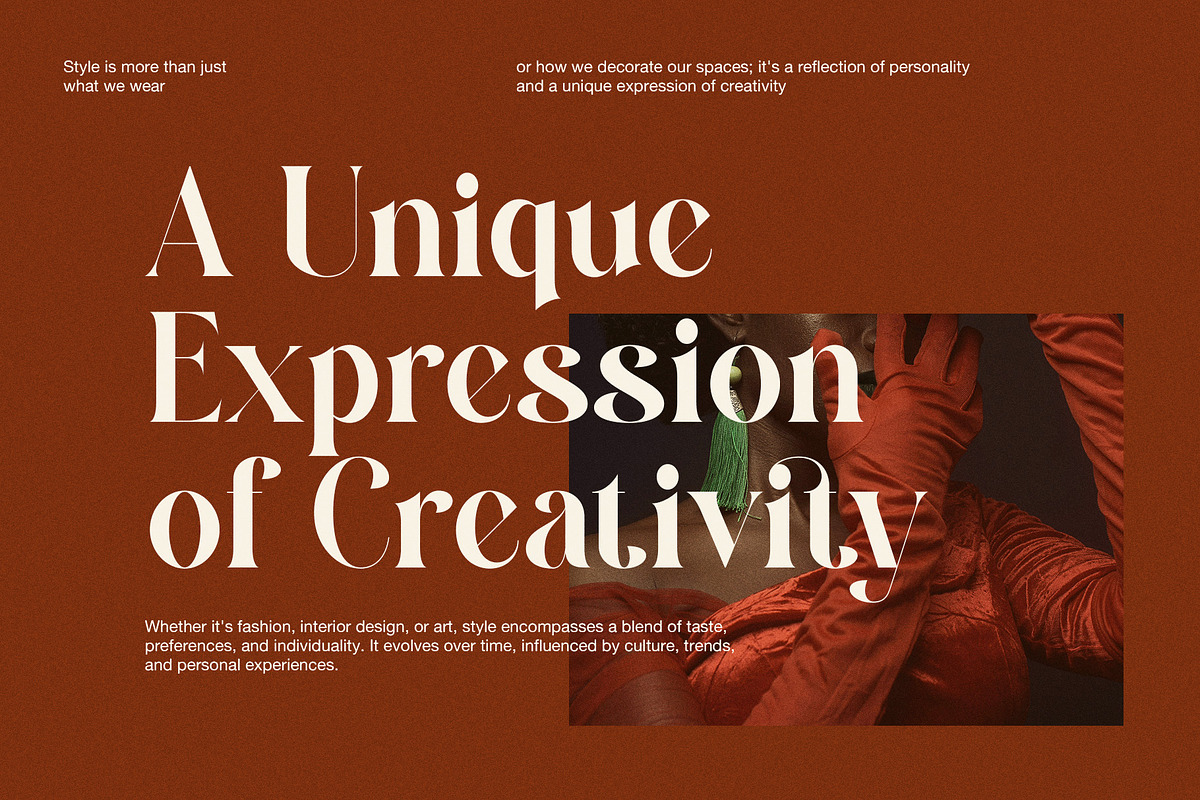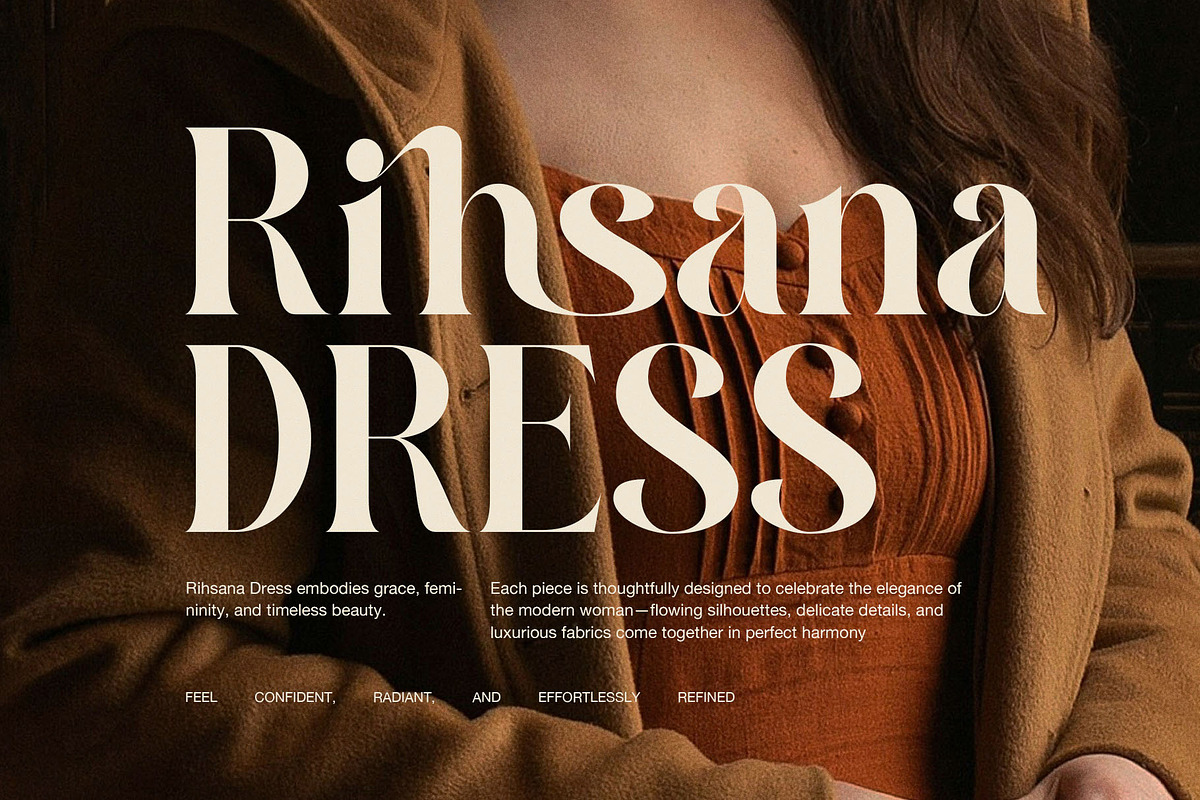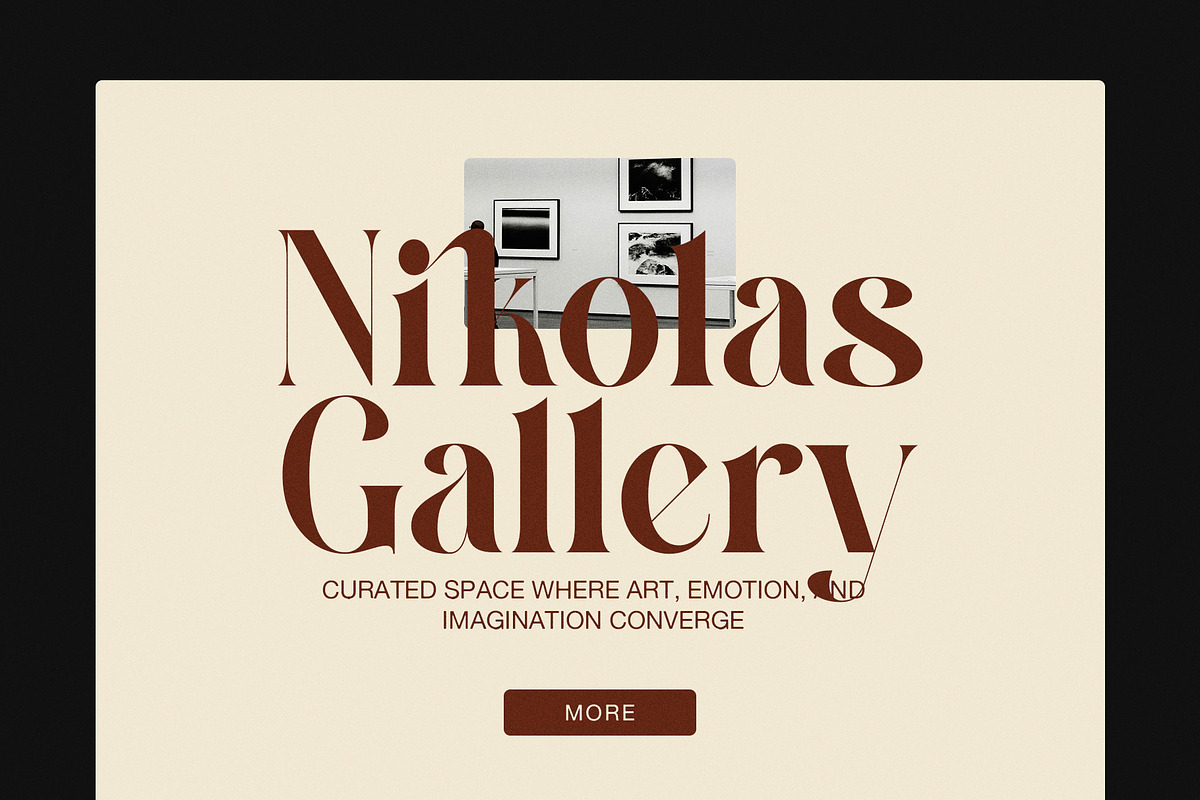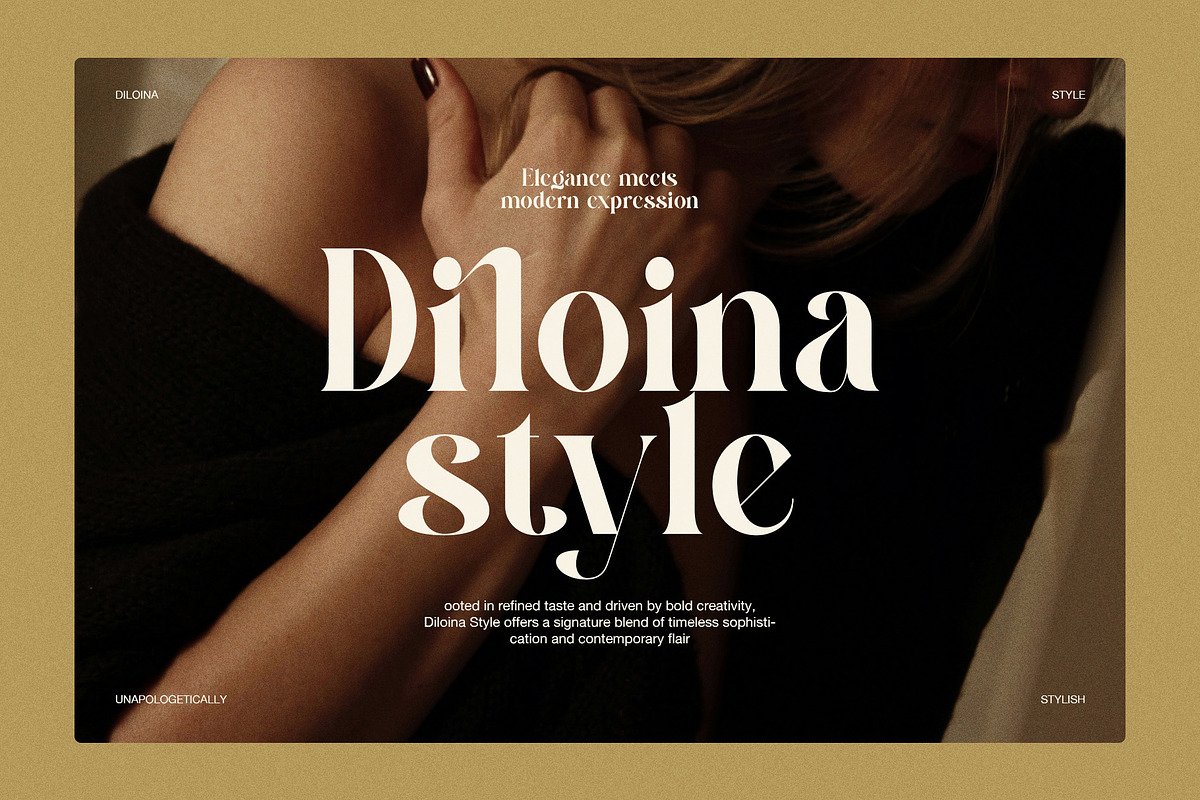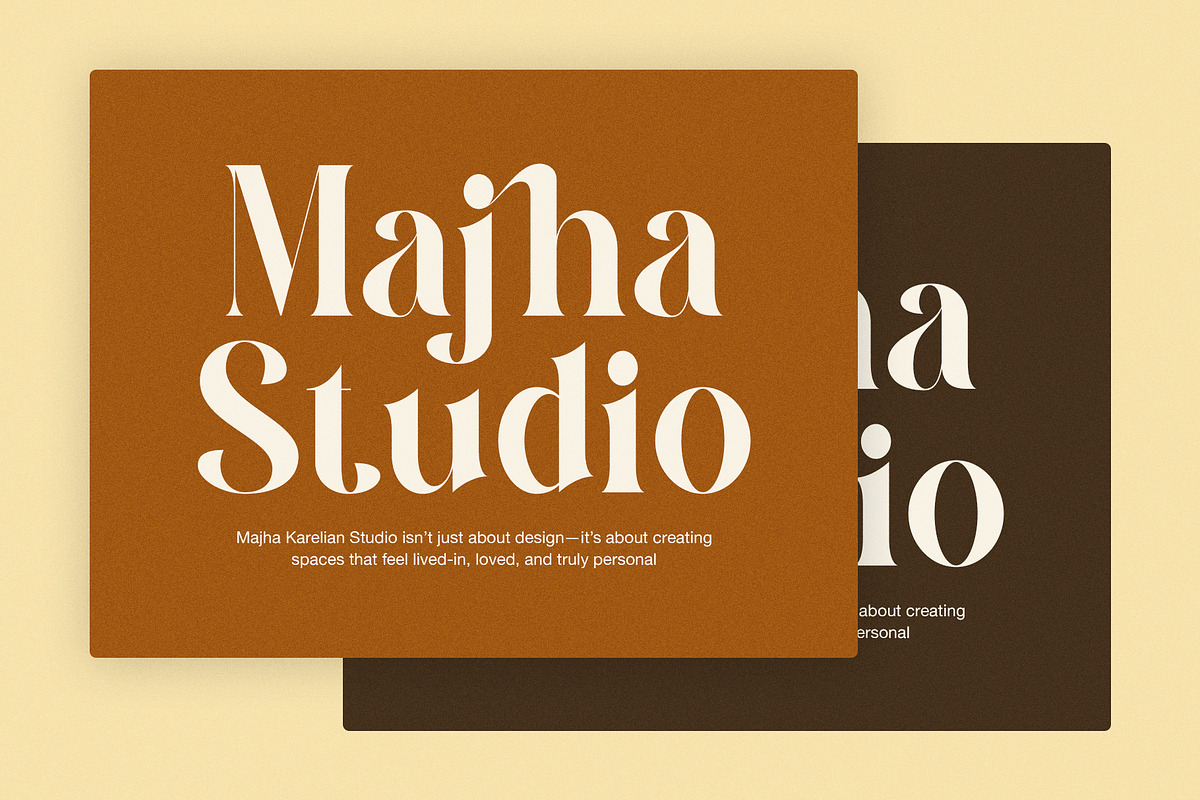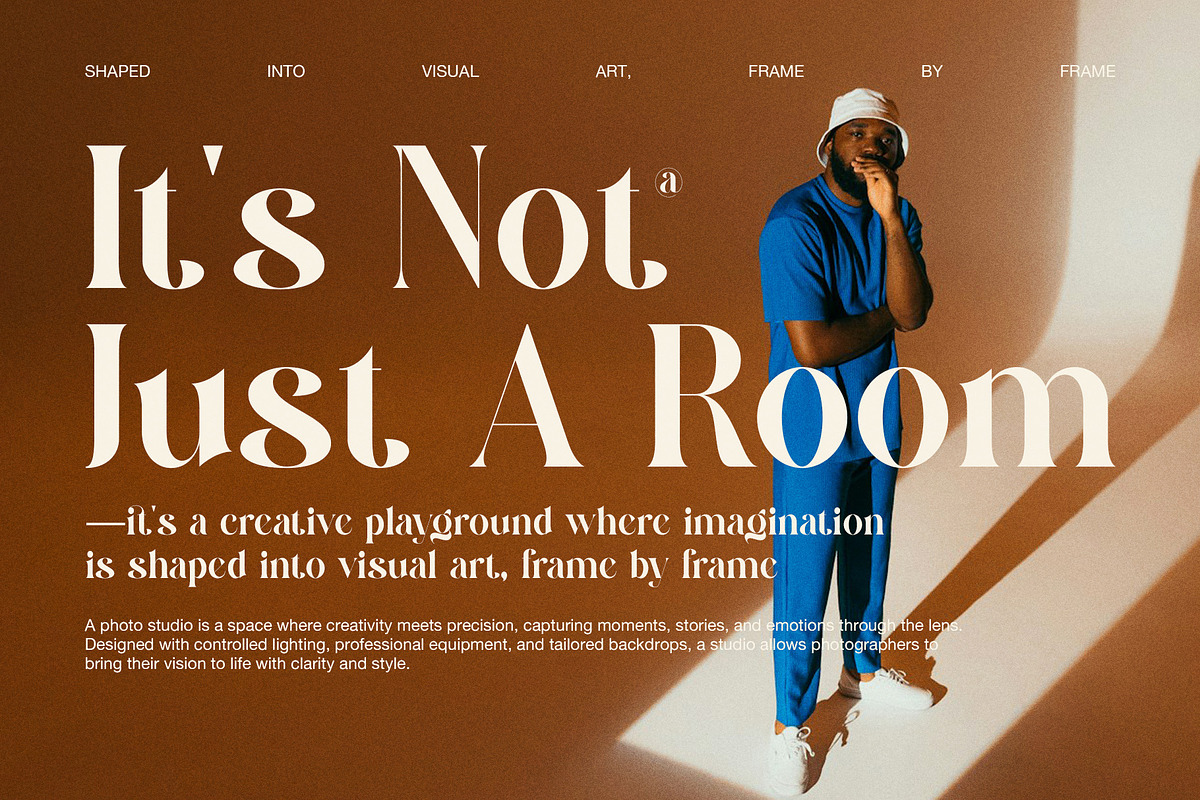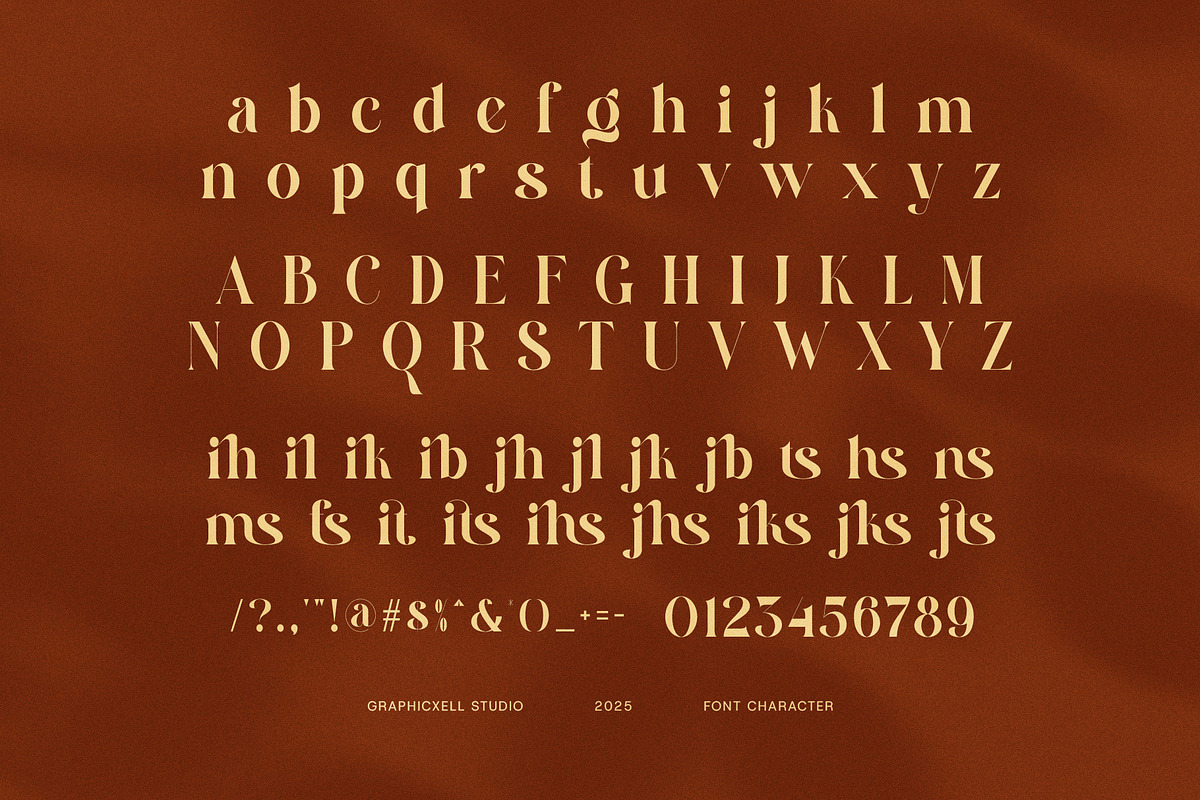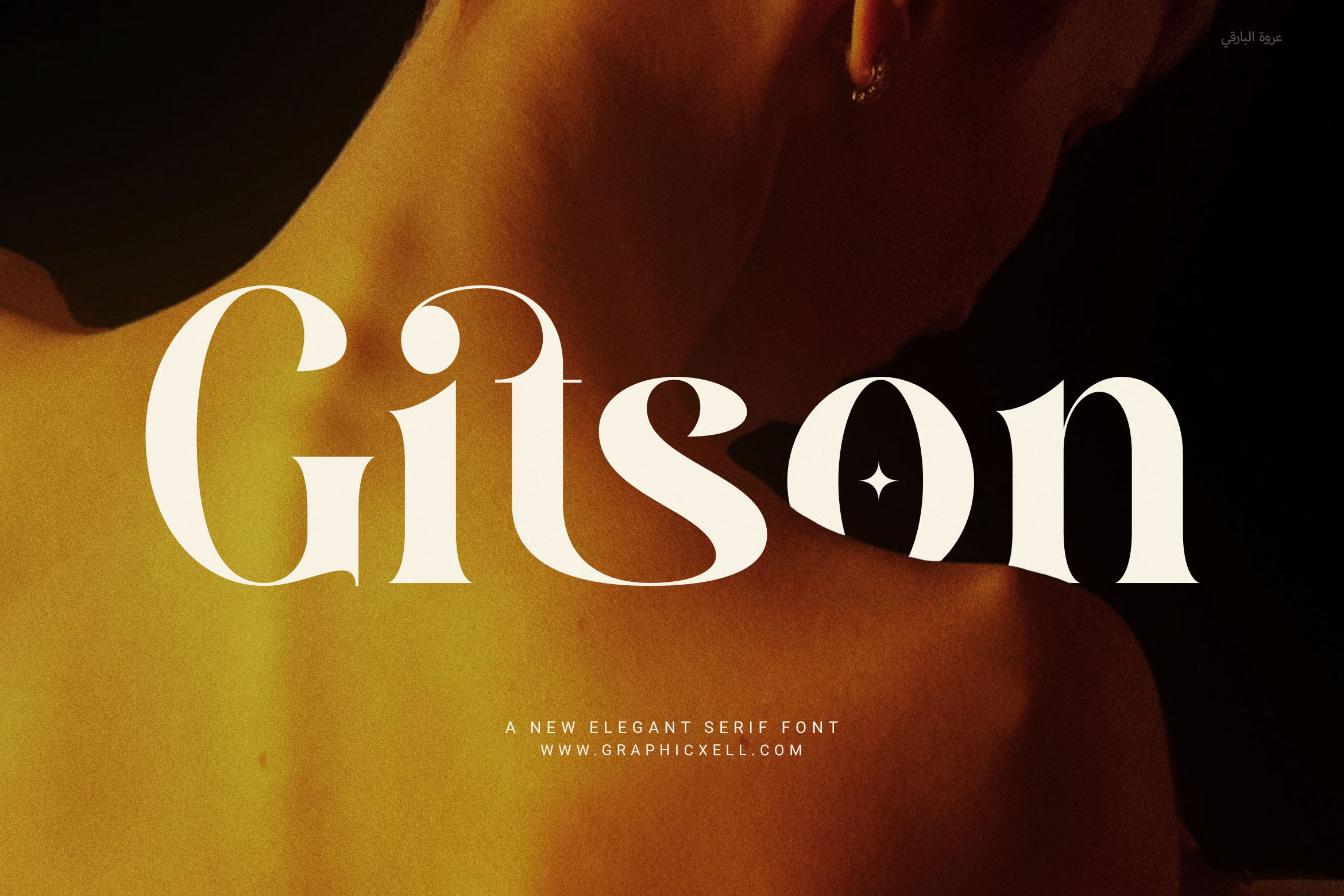
Gitson Elegant Serif Font
Gitson Elegant Serif Font – Sophisticated Style for Bold Brands
Gitson Elegant Serif Font is a stylish and modern serif typeface crafted for timeless appeal. It features balanced, proportional letterforms that give your design a clean and polished look. With its elegant curves and functional ligatures, Gitson adds charm and character to any project.
Whether you're working on luxury branding or editorial content, this font offers the versatility you need. Use it for logos, websites, magazines, business cards, product packaging, or social media graphics. Because of its refined structure, Gitson performs beautifully both in digital and print formats.
It was designed with creative professionals and modern businesses in mind. Therefore, it’s ideal for fashion, lifestyle, boutique, food, and cosmetics branding. Its strong presence and classy finish make your text feel premium, while remaining easy to read.
Why choose Gitson Elegant Serif Font?
Modern serif design with smooth, stylish curves
Functional ligatures for extra design flexibility
Highly legible for both screen and print use
Ideal for premium branding and editorial layouts
Perfect for fashion, beauty, and lifestyle industries
Because first impressions matter, Gitson ensures your brand always looks elegant, professional, and unforgettable.